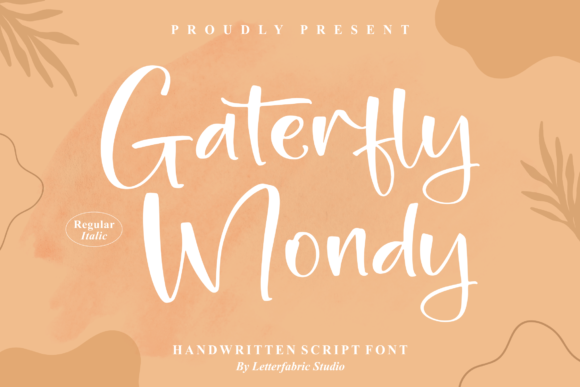
Introducing Gaterfly Mondy, an exquisite script font that adds a touch of elegance and sophistication to your creative projects. Crafted with intricate details and flowing curves, this font exudes a timeless charm that captures the essence of sophistication and grace.
With its delicate strokes and graceful letterforms, Gaterfly Mondy exudes a feminine touch that adds a touch of enchantment to any design. Its versatility makes it a perfect choice for a wide range of projects, from logos and branding to labels and invitations.
Unleash your creativity with Gaterfly Mondy and elevate your designs to new heights. Its timeless beauty and universal appeal make it an essential tool for any designer or artist looking to create captivating and memorable designs.
Immerse yourself in the world of Gaterfly Mondy, where imagination meets artistry. Let your designs come alive with its enchanting charm and let your creativity soar.